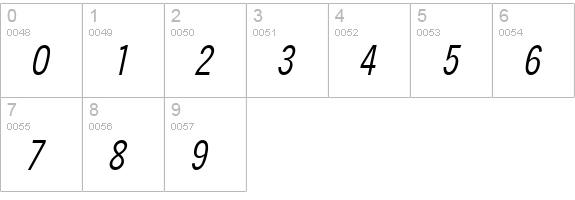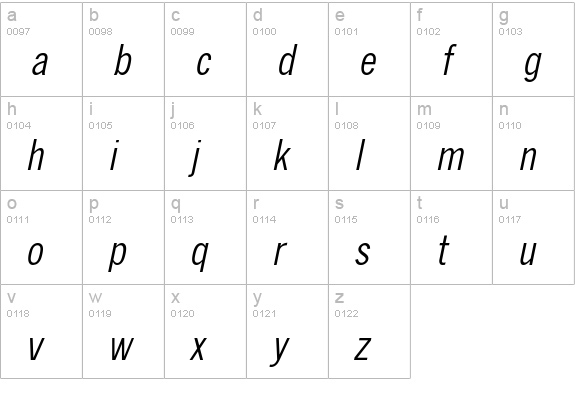
QuickType Condensed Italic Font Details
QuickType Condensed Italic is a distinctive, condensed-width, italic variant in the QuickType typeface family \xE2\x80\x94 well suited to design and typography projects.
Introducing QuickType Condensed Italic, a sleek and modern typeface that effortlessly combines elegance with efficiency. This stylish font is perfect for projects that require a touch of sophistication, while maintaining a streamlined and contemporary look. QuickType Condensed Italic boasts a unique and distinctive italicized style, adding a subtle flair to any design. Its condensed form allows for maximum legibility, making it an ideal choice for headlines, subheadings, and any text that needs to stand out. The smooth and flowing curves of QuickType Condensed Italic create a sense of movement and dynamism, adding a touch of personality to your designs. Whether you're designing a logo, creating a website, or crafting a print advertisement, this font will effortlessly elevate your work to new heights. One of the best features of QuickType Condensed Italic is its versatility. It works seamlessly across a wide range of applications, from digital platforms to print media. Its clean and crisp lines ensure that your text remains sharp and clear, even at smaller sizes. And the best part? QuickType Condensed Italic is available for free download at FontsMarket.com. Say goodbye to expensive font purchases and hello to high-quality typography that won't break the bank. Simply head over to FontsMarket.com, find QuickType Condensed Italic, and start using it in your projects today! So, whether you're a professional designer or a DIY enthusiast, QuickType Condensed Italic is the perfect choice for adding a touch of sophistication and style to your work. Download it for free at FontsMarket.com and let your creativity shine.